Have you ever noticed the fancy letters in some signs or websites? They’re not just regular letters; they’re special! These are known as Aesthetic Fonts. They can make words look beautiful, fun, or even spooky! Do you want to learn more about these cool fonts? Let’s dive in and discover how they make our world more colorful and exciting.
Key Takeaways
- Aesthetic fonts make text look stylish and unique.
- They are used in art, designs, and social media.
- Aesthetic fonts can express different moods and feelings.
- Choosing the right font affects how readers feel.
- Aesthetic fonts are popular among young designers.
Understanding Aesthetic Fonts
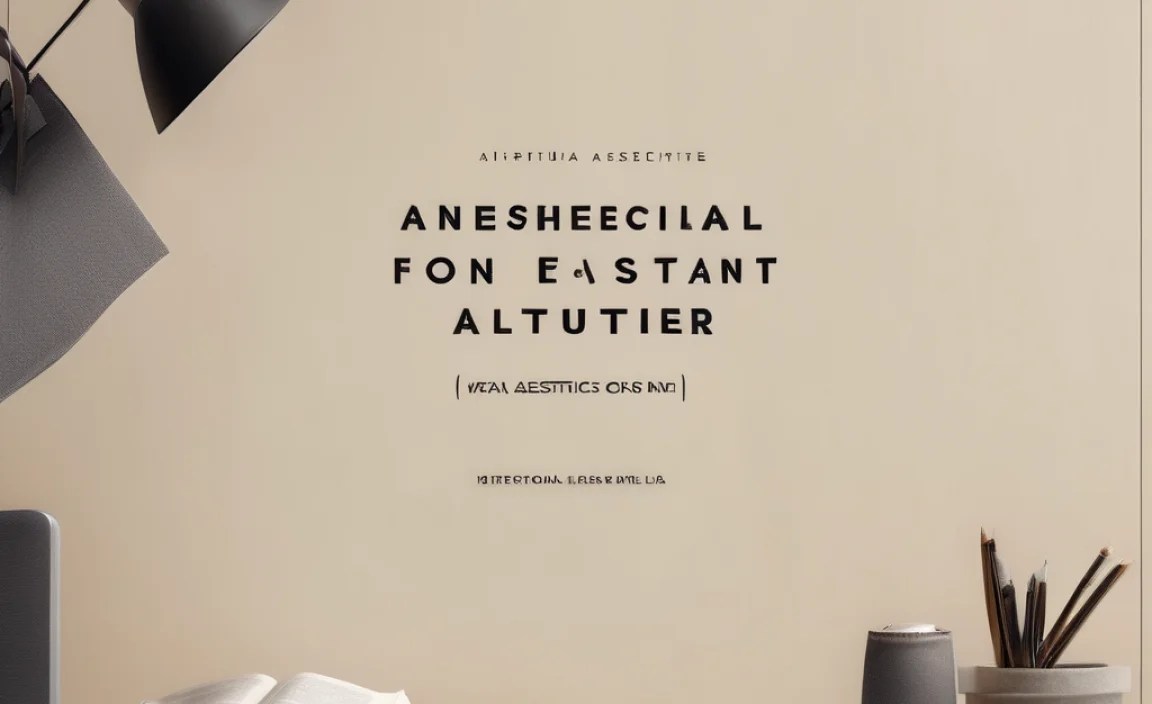
Aesthetic fonts are special styles of letters. They change how words look. You might have seen them in posters, websites, and even on Instagram. These fonts can make words look playful, magical, or even old-fashioned. Did you know some fonts are inspired by nature? Others might remind you of computer games or fairy tales. The magic of aesthetic fonts lies in their ability to transform ordinary letters into something extraordinary!
- Aesthetic fonts come in many styles.
- They are fun and eye-catching.
- These fonts can match different themes.
- Designers use them for creative projects.
- They make text stand out.
When you see an aesthetic font, it might make you feel happy or curious. Different styles can give you different feelings. Some fonts look like they’re from a fairy tale. Others might remind you of neon lights in a city. By choosing the right font, designers can share a message without using words. It’s like adding a splash of color to plain text!
Fun Fact or Stats : Did you know there are over 200,000 font styles available?
What Are Aesthetic Fonts?
Aesthetic fonts are designed to be visually pleasing. They are different from regular fonts like Times New Roman or Arial. But what makes a font aesthetic? Is it the curves, the colors, or the special effects? Imagine writing a story with letters that glow or swirl like a rainbow. That’s the magic of aesthetic fonts. They can turn simple words into art!
History of Aesthetic Fonts
Did you know fonts have a long history? The idea of changing the look of letters started long ago. In the past, people made letters by hand. Artists would draw each letter with care. As time went on, technology helped create new styles. Today, computers make it easy to design and use aesthetic fonts. But the art and creativity remain the same!
Popular Aesthetic Font Types
Have you ever wondered about the different types of aesthetic fonts? There are fonts that look like handwriting, while others might remind you of space! Some popular ones include cursive, gothic, and sans-serif. Each type has its own charm and style. Schools might use one type, while a video game uses another. Choosing the right font depends on what you want to say!
Creating Your Own Aesthetic Font
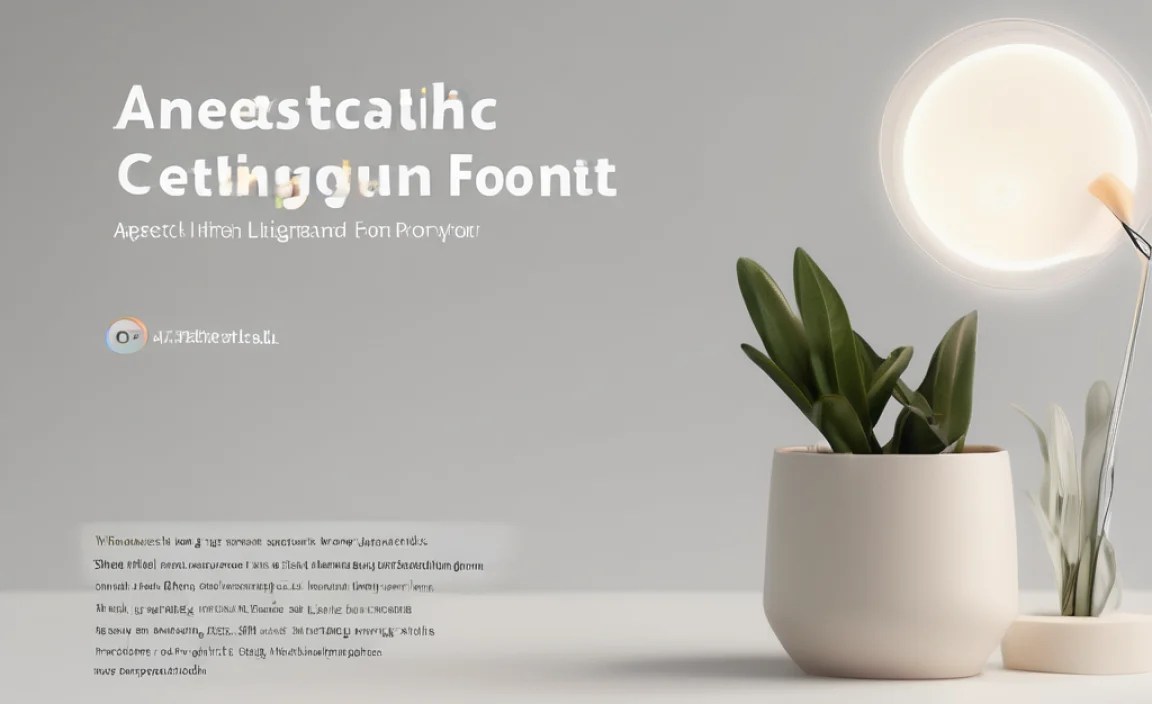
Do you want to make your own aesthetic font? It’s easier than you think! You can use special software or online tools. Start with an idea or mood. Do you want it to be playful or serious? Then, draw each letter carefully. You can add colors, shadows, and other effects. Designing a font is like painting a picture with letters. It’s a fun way to express yourself!
- Choose a mood or theme.
- Use software for design.
- Draw each letter carefully.
- Add colors and effects.
- Test your font in different sizes.
Once your font is ready, share it with friends. They might use it for birthday cards or social media posts. Creating fonts allows you to share a piece of your imagination with the world. It’s a process that blends creativity and design, and the final result is always something special!
Fun Fact or Stats : Some people design fonts as a full-time job!
Step-by-Step Guide to Font Design
Designing a font can be like creating a new language. First, think about what you want your letters to say. Do they dance, whisper, or shout? Next, sketch your letters on paper. Use a computer to refine them. Don’t worry if it takes a few tries. Great designs often need time and patience. Soon, you’ll have a font that’s perfect for your needs!
Tools for Designing Fonts
There are many tools to help you design fonts. Some are free, while others cost money. Popular ones include FontForge and Glyphs. These tools let you draw, adjust, and save your designs. You can also find online tutorials. They can teach you tricks to make your font look amazing. With practice, you’ll master the art of font design!
Sharing Your Font Creations
Once you’ve created your font, it’s time to share it! You can offer it online for others to see. There are websites where you can upload your font. Some people even sell their designs. Imagine someone using your font on a poster or a t-shirt. It’s a way to show the world your unique style. Sharing helps you connect with other designers too!
Answer: Yes, anyone can use aesthetic fonts! They’re accessible to everyone, from professional designers to hobbyists. Many websites offer free fonts. You can download and use them for personal projects, making your work look stylish.
Question: Are there tools to help choose aesthetic fonts?
Answer: Yes, there are many tools to help you choose aesthetic fonts. Websites like Canva and Adobe Fonts offer a range of styles. You can explore and experiment to find the perfect font for your project. These tools make font selection easy and fun.